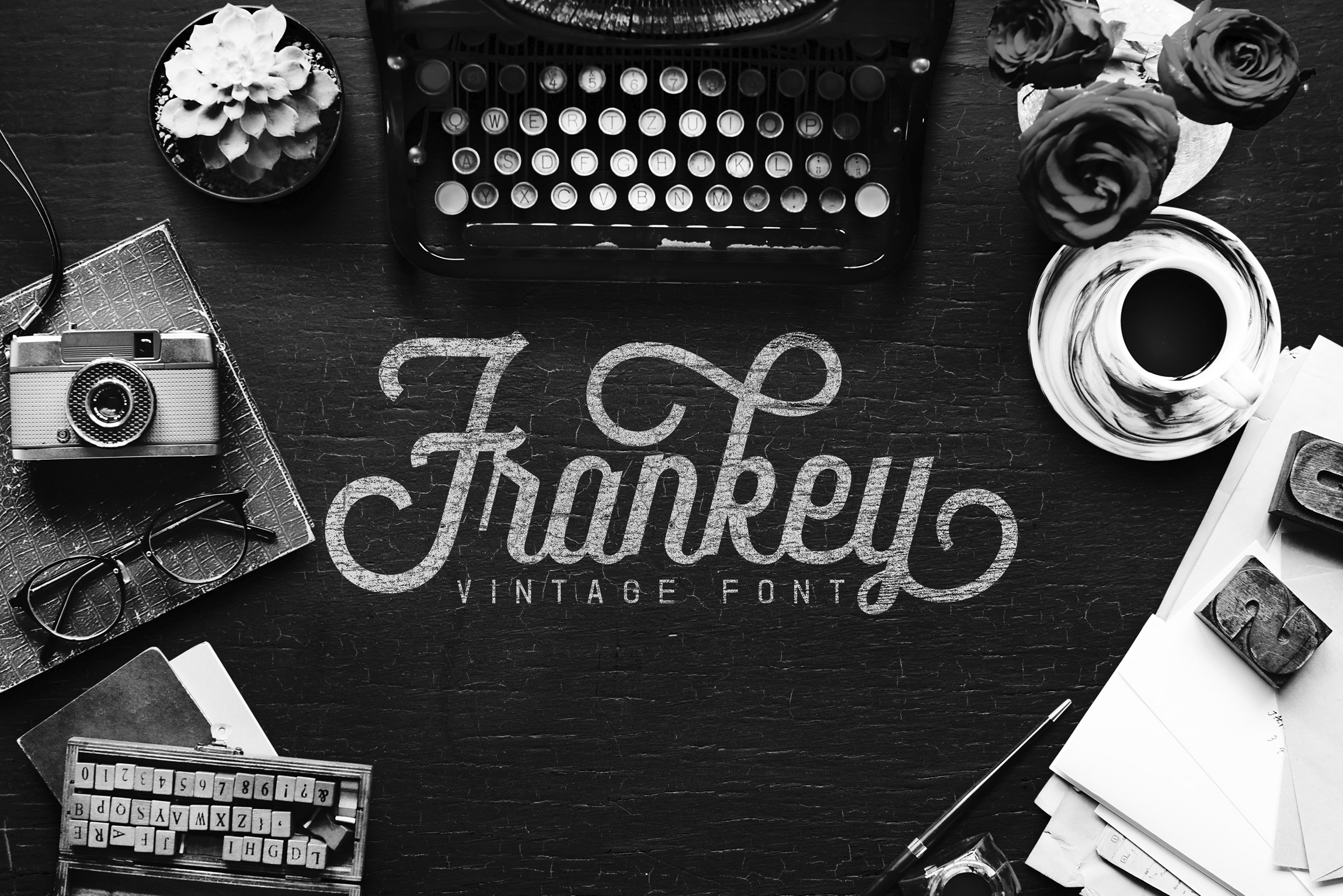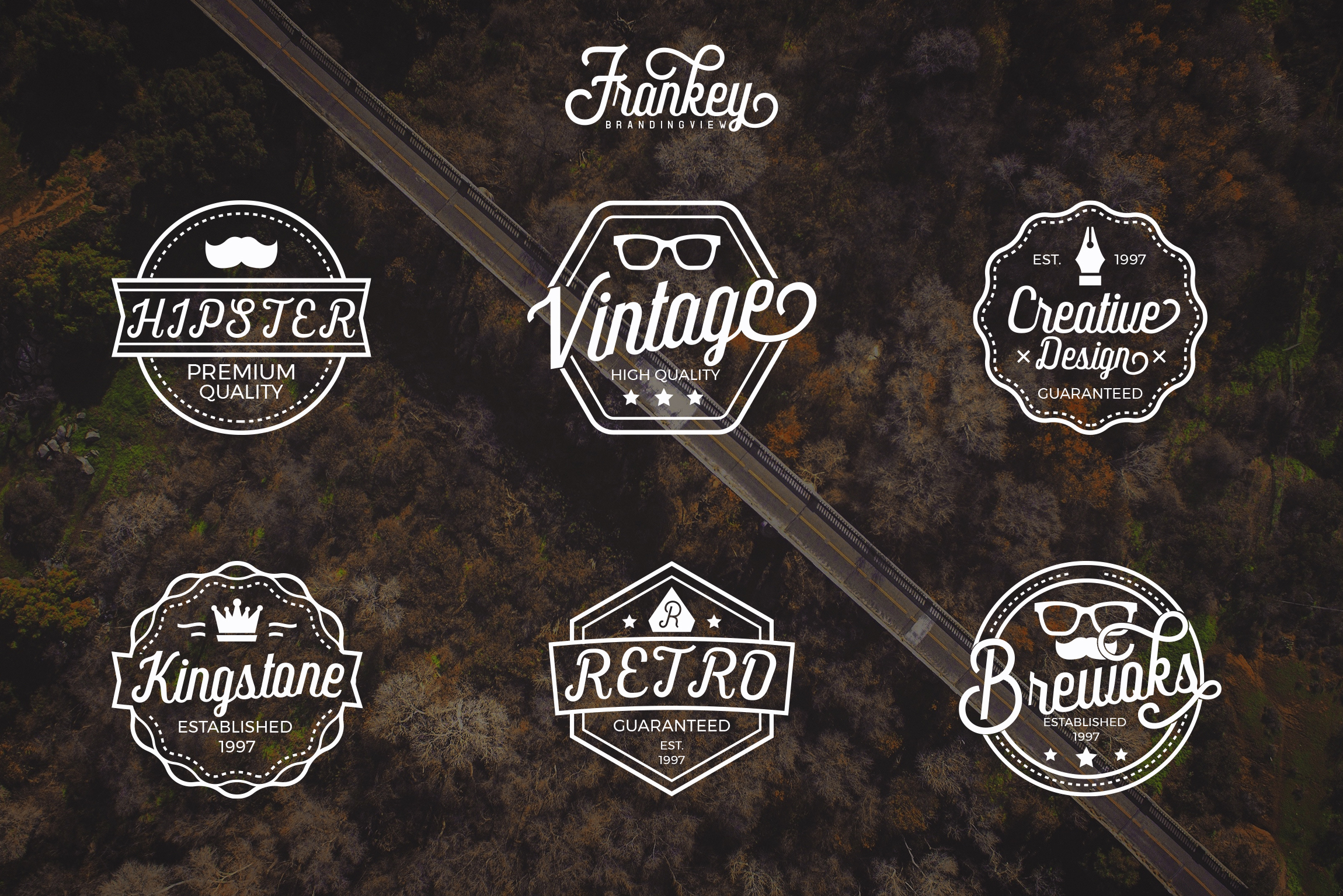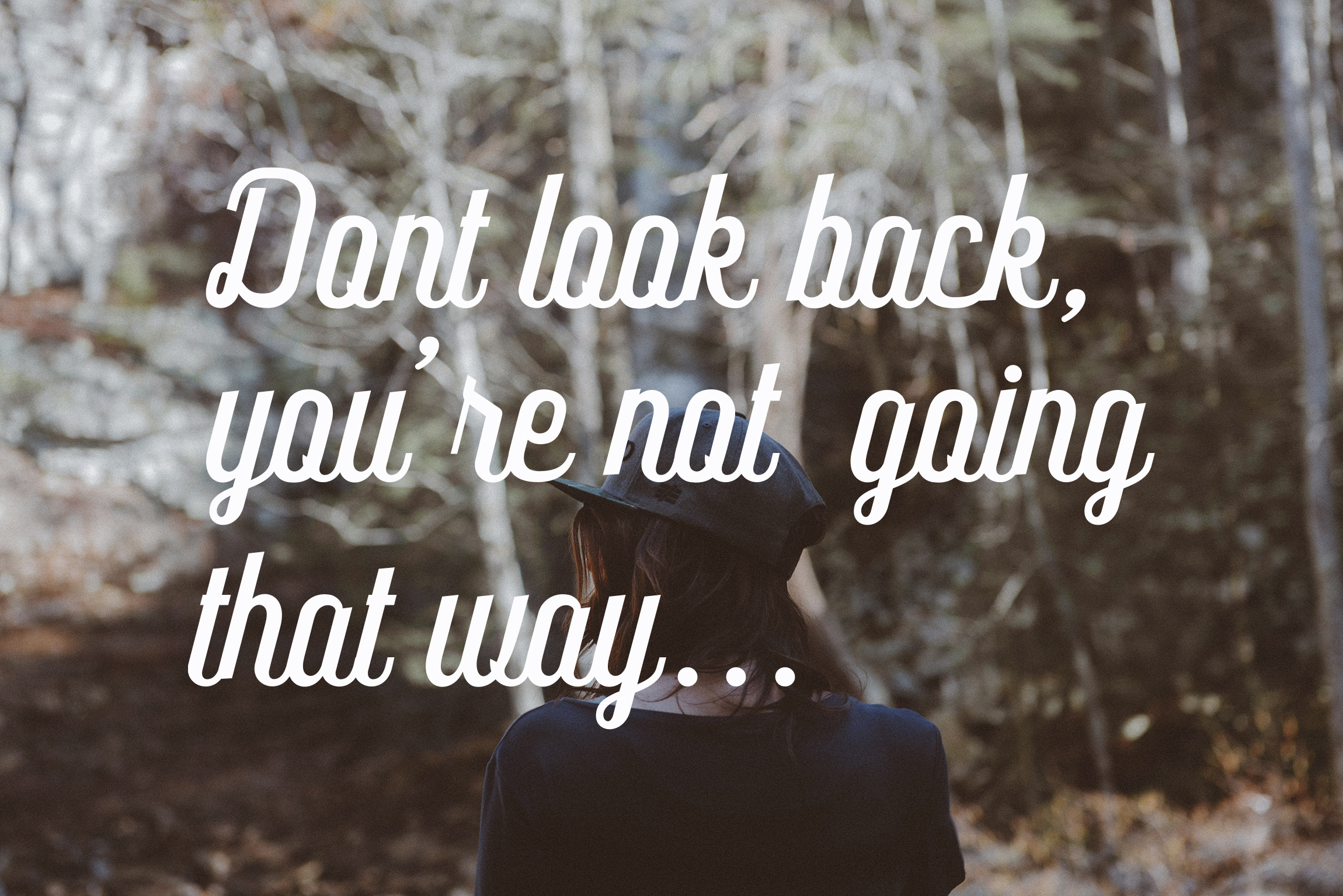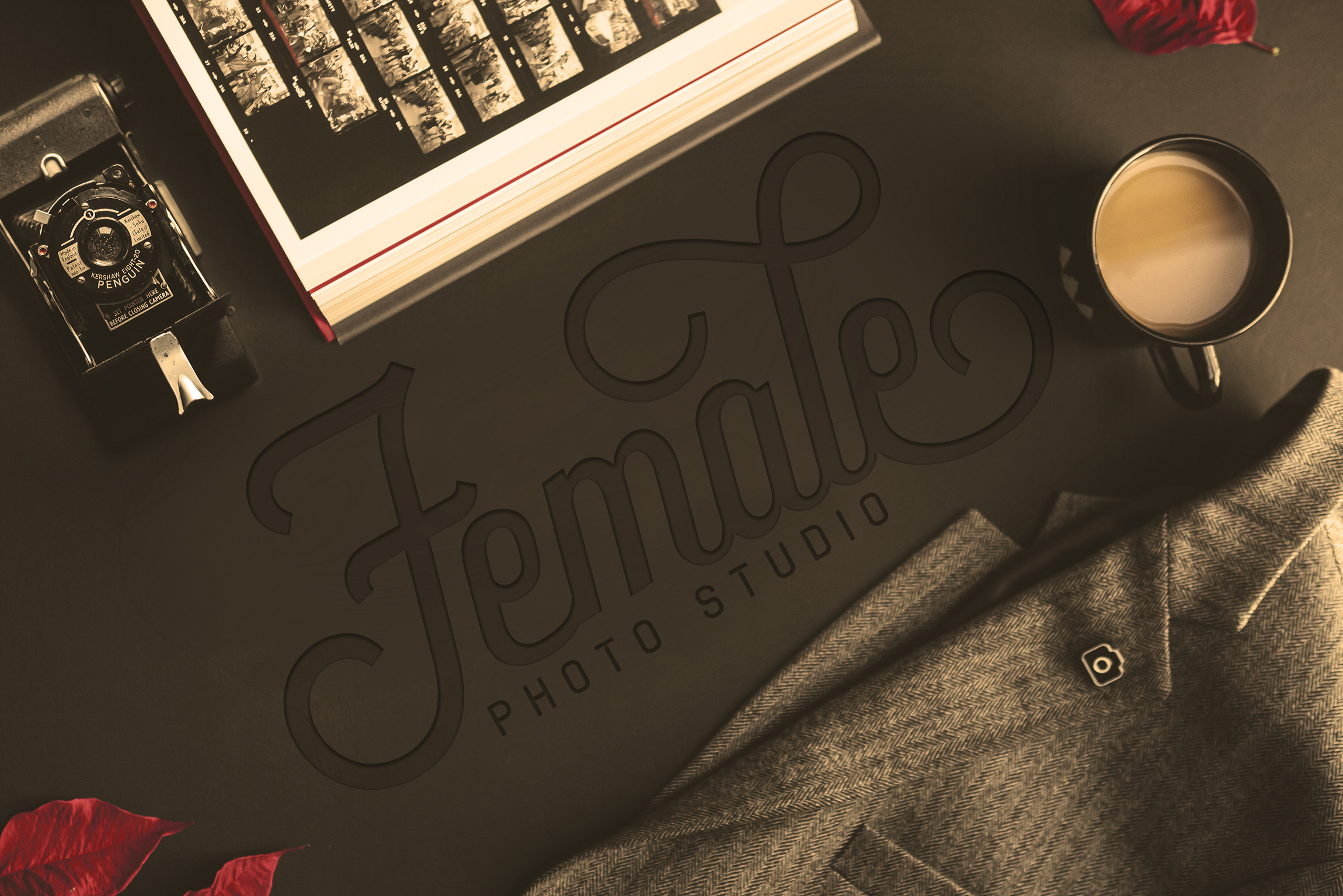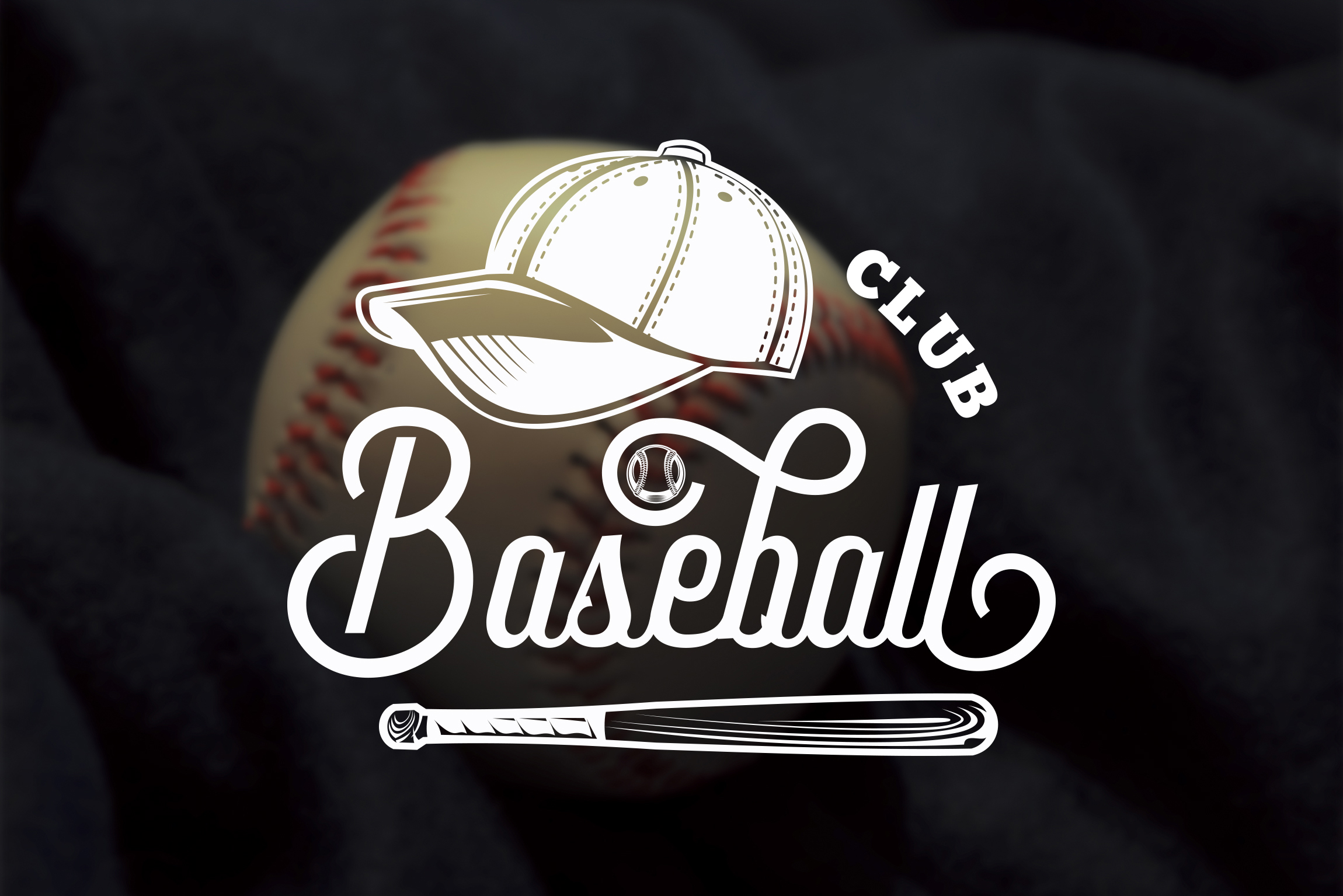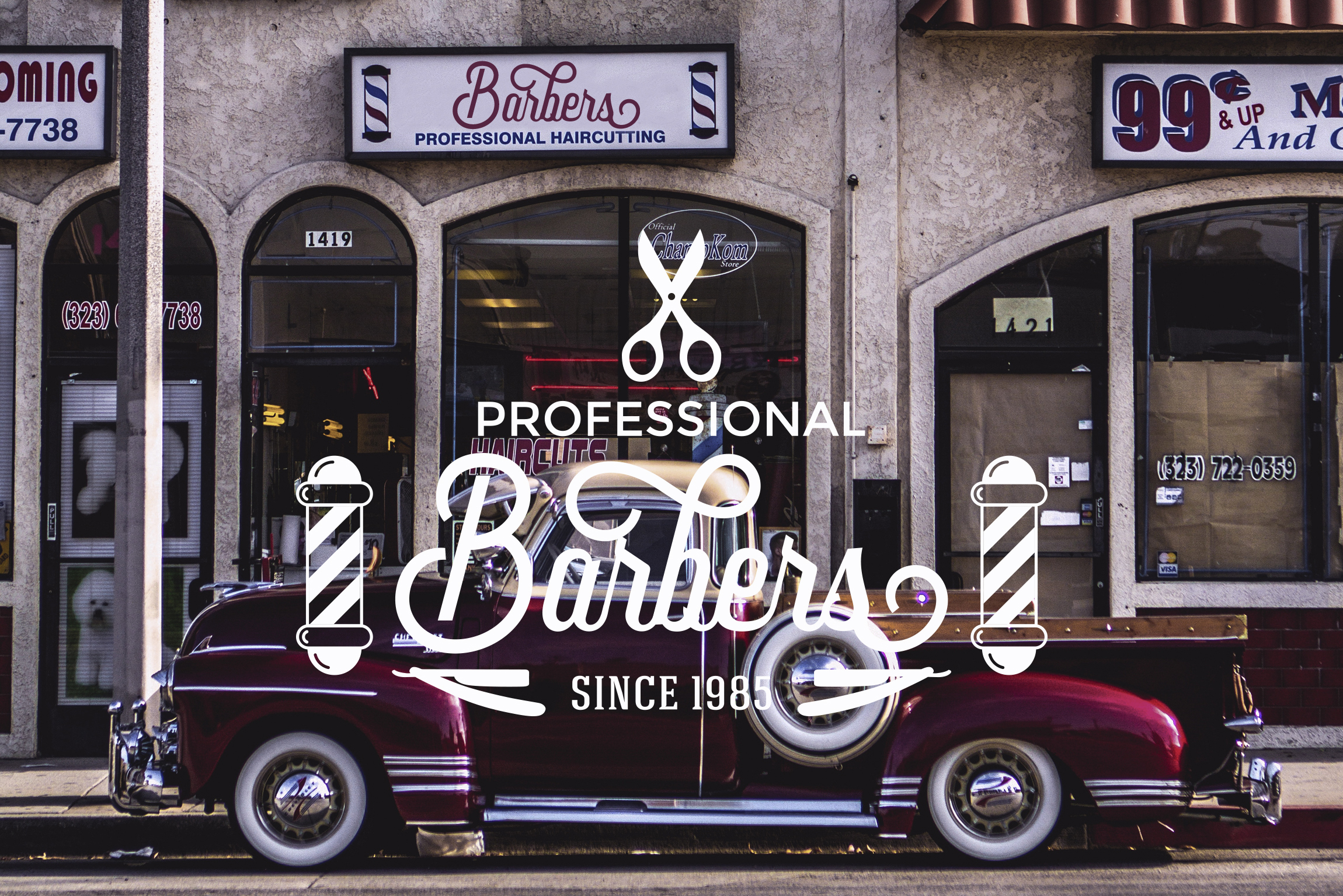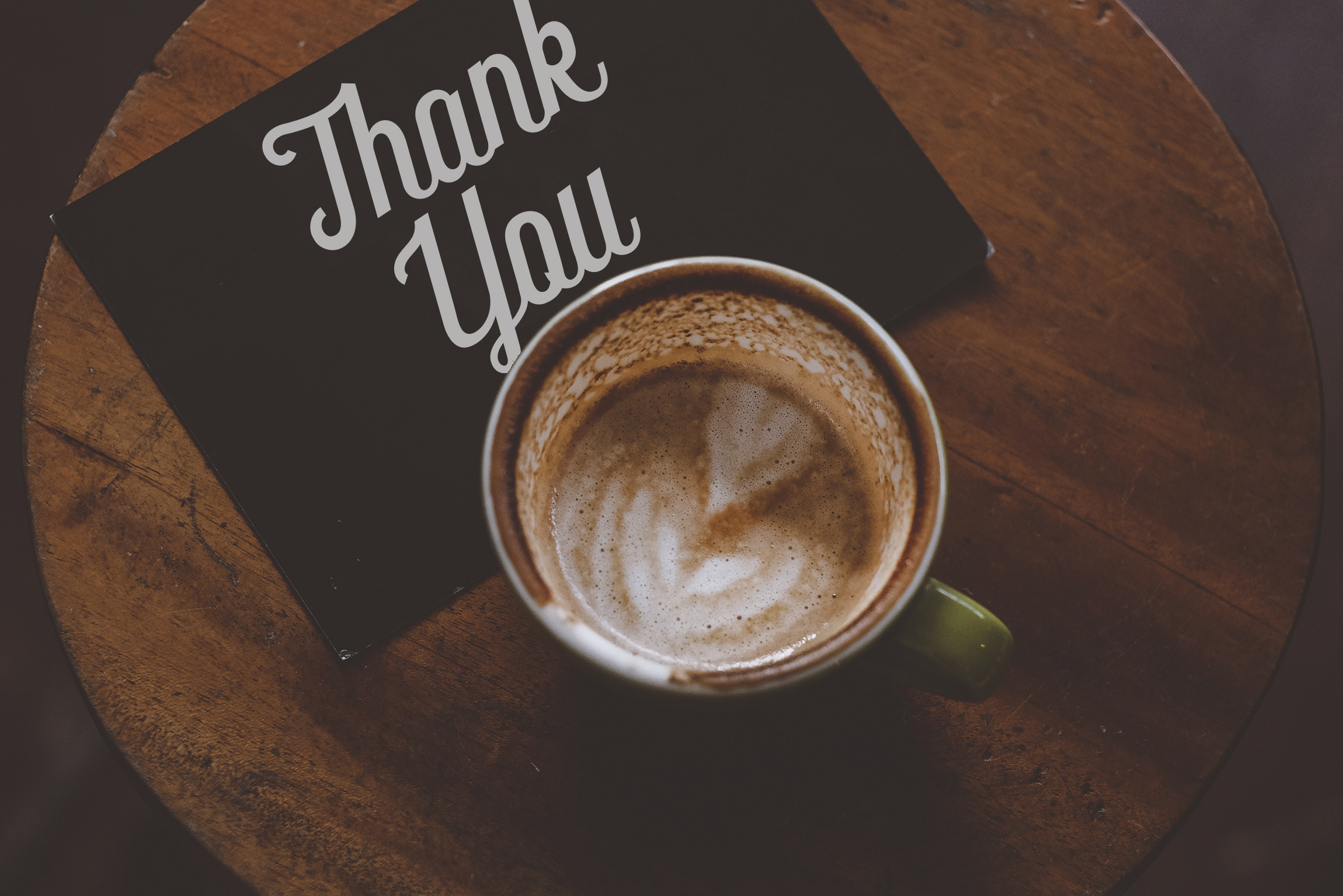
Frankey Font
About Frankey Font
Frankey Vintage Font is an elegant script font inspired by retro style. It perfectly represents vintage aesthetics in a modern and minimalist way. The font includes special uppercase letters, alternate characters and beautiful ligatures.